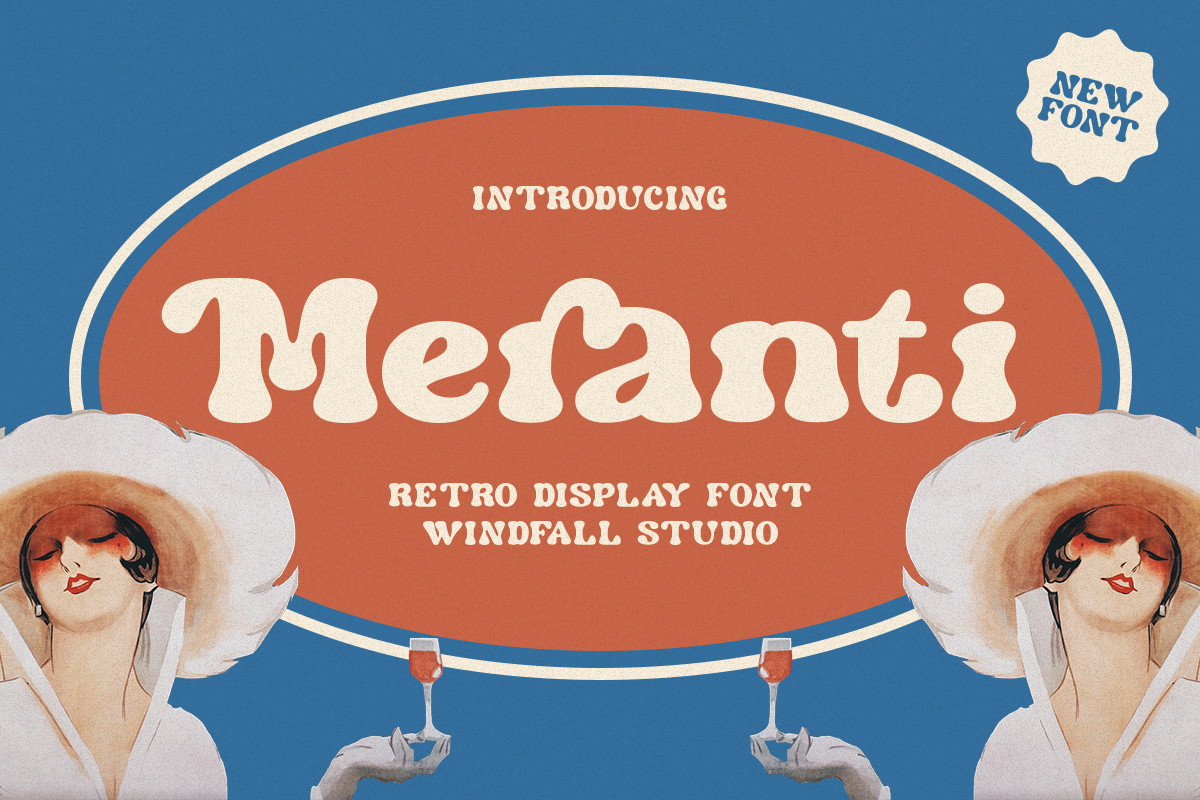
Meranti - Retro Display Font
Meranti is a retro display font designed to bring a vintage and classic touch to any of your design projects. With unique letter shapes and standout characters, Meranti is perfect for posters, logos, branding, invitations, and various other creative projects.
- Uppercase and Lowercase Letters
- Numbers and Punctuation
- Alternate Characters
- Vintage Posters
- Logo Design
- Branding
- Invitations and Greeting Cards
- Social Media
- Web Design
- Other Creative Projects